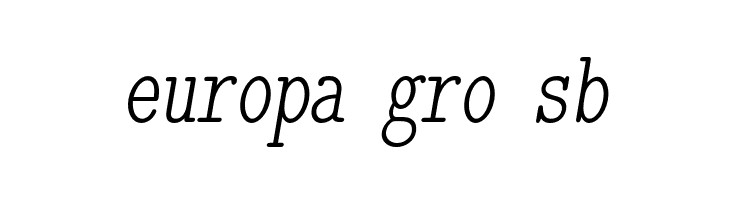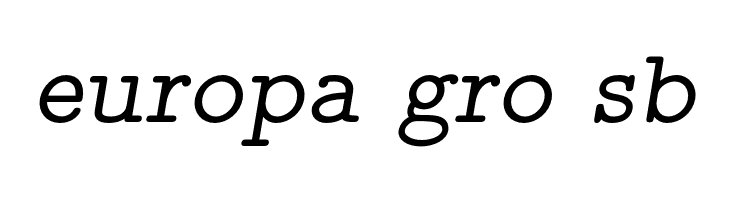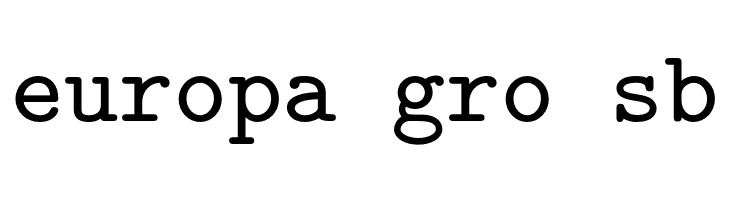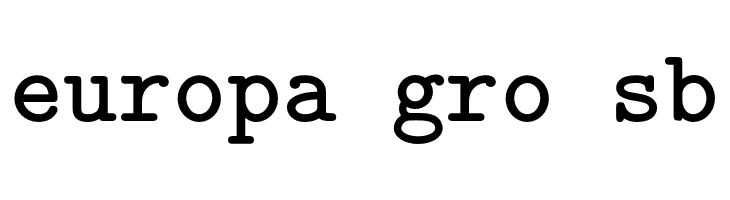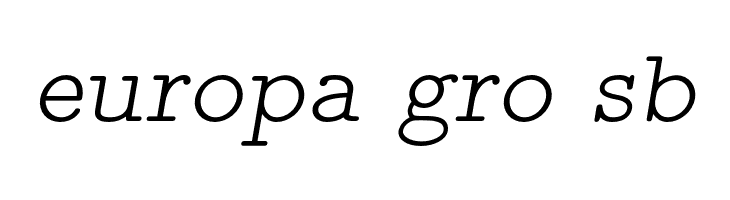
A light, condensed, oblique monospaced font ideal for technical use.
A monospaced oblique font with a modern and technical style.
A monospaced slab serif font with uniform width and consistent stroke weight.
A bold, monospaced slab serif font with rounded serifs and uniform character width.
A monospaced, oblique font with a modern and technical style.
A clean, monospaced typeface ideal for coding and data presentation.
A monospaced slab serif font with a classic typewriter style.
A monospaced, oblique font with a modern and technical style.
A bold, oblique monospaced font with uniform character width and modern appeal.
A clean, monospaced font ideal for coding and technical documentation.